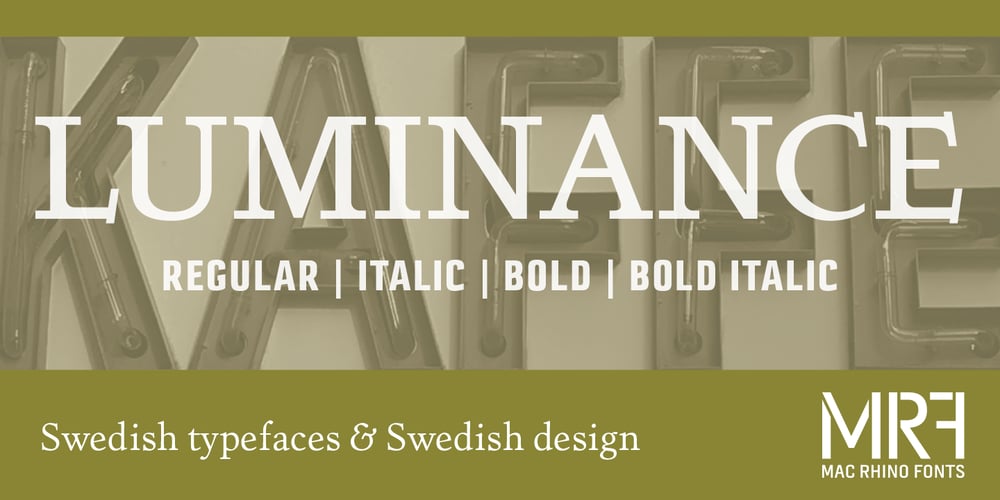
Luminance Font Family was designed by Stefan Hattenbach and published by MAC Rhino Fonts. Luminance contains 5 styles and family package options. As a result of fascination for East European type design, MRF couldn’t resist to make a unique interpretation of a typeface named Pracht. Originally made by the Czech type designer Carl Pracht in 1941–43. Having a rather calligraphic style both in regular and italic, MRF preferred it to be more straightforward and modern-looking. The italic version was executed with traditional italic letters (a, f, g, k, v, w and y). The numerals were made in a classic manner as old-style figures. Can be treated as both a text and display font.